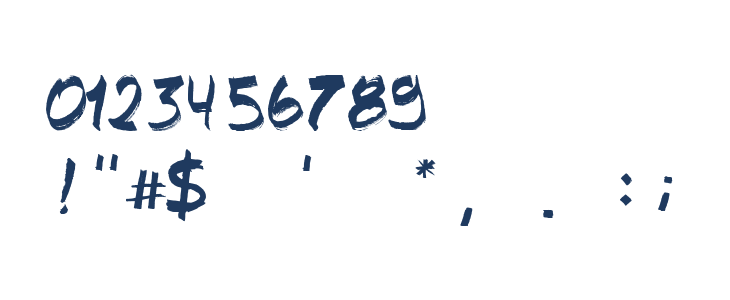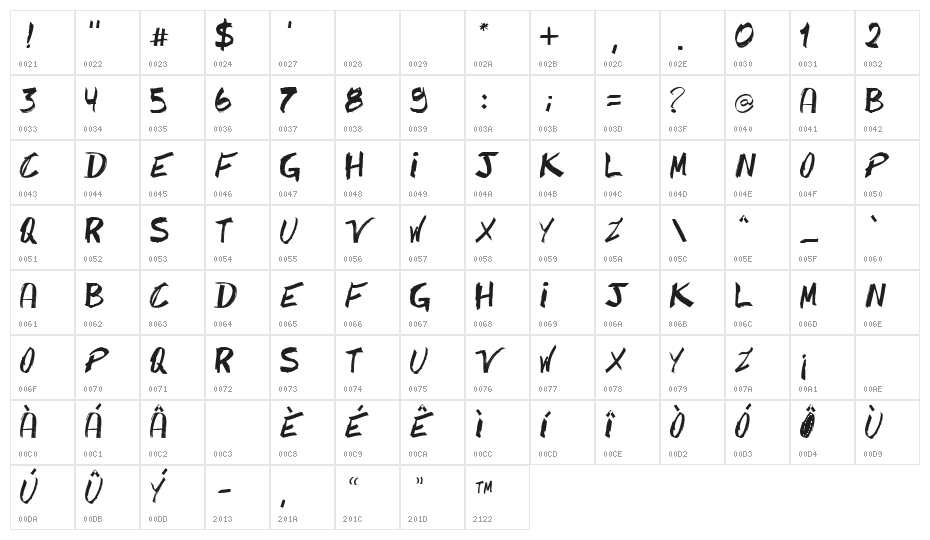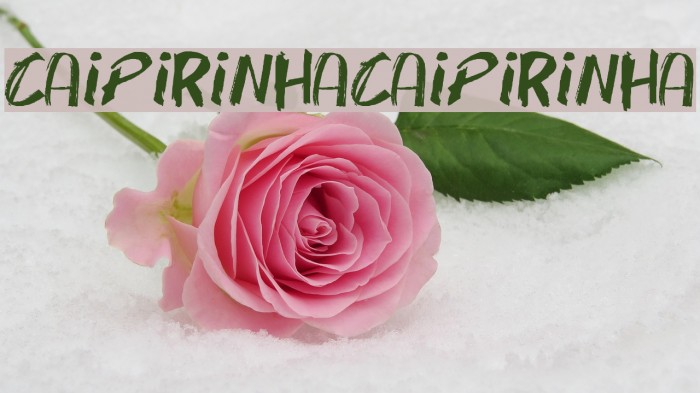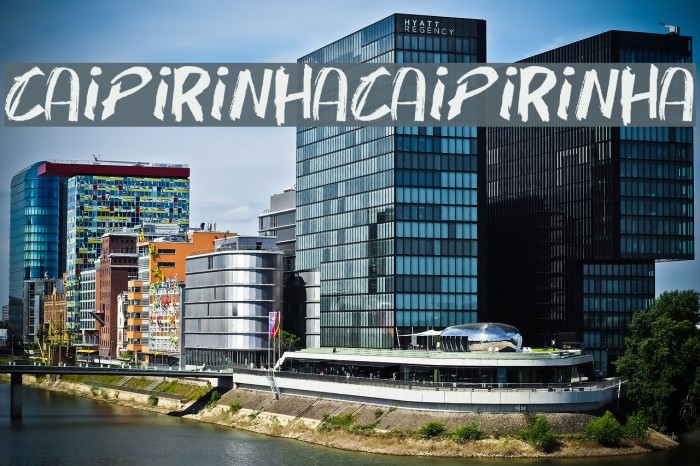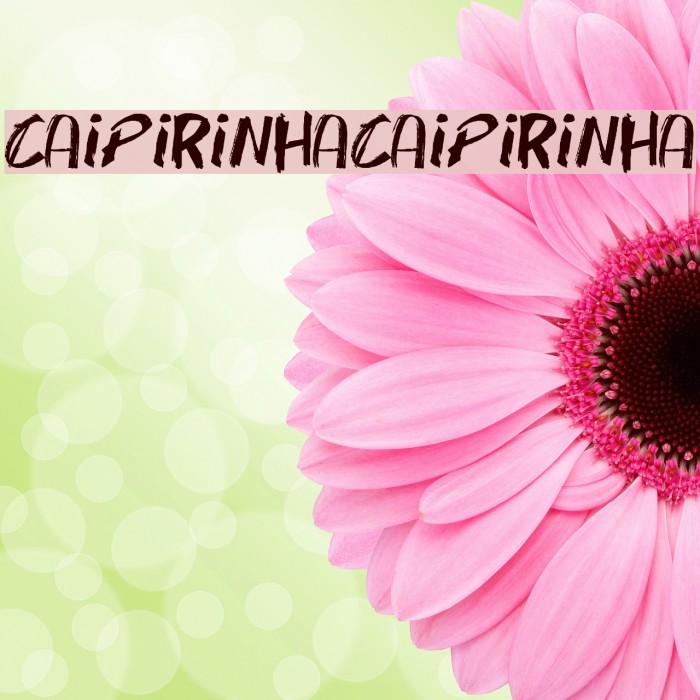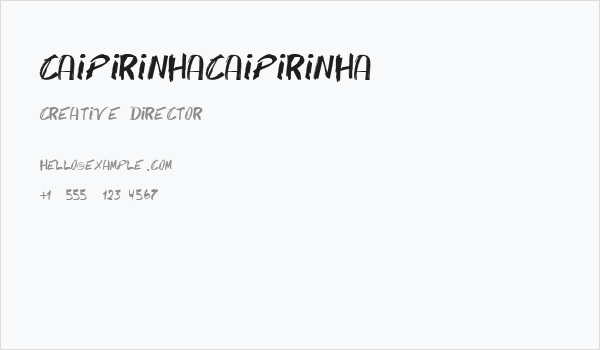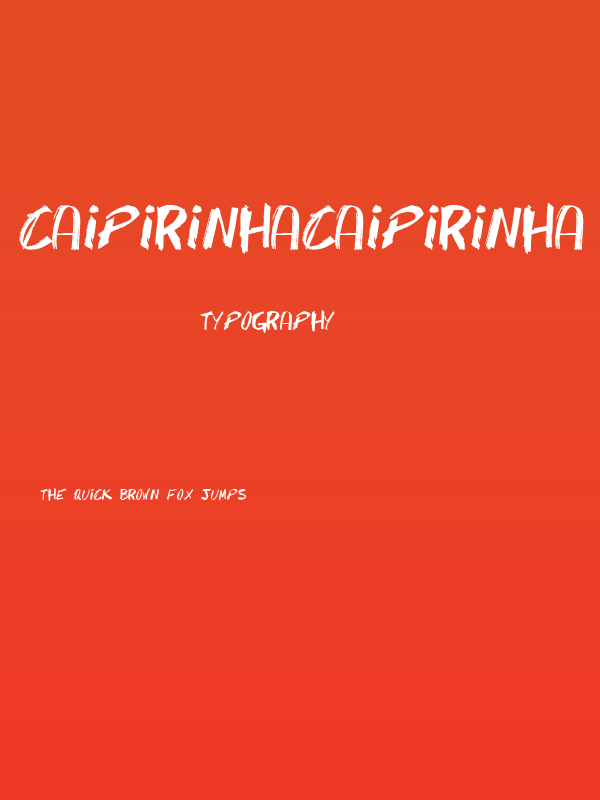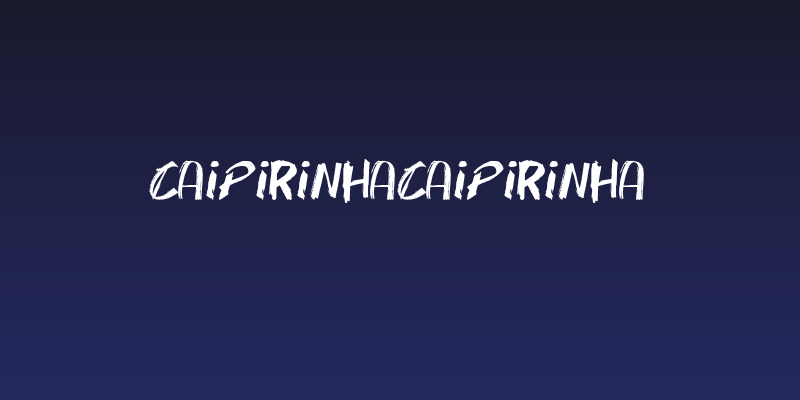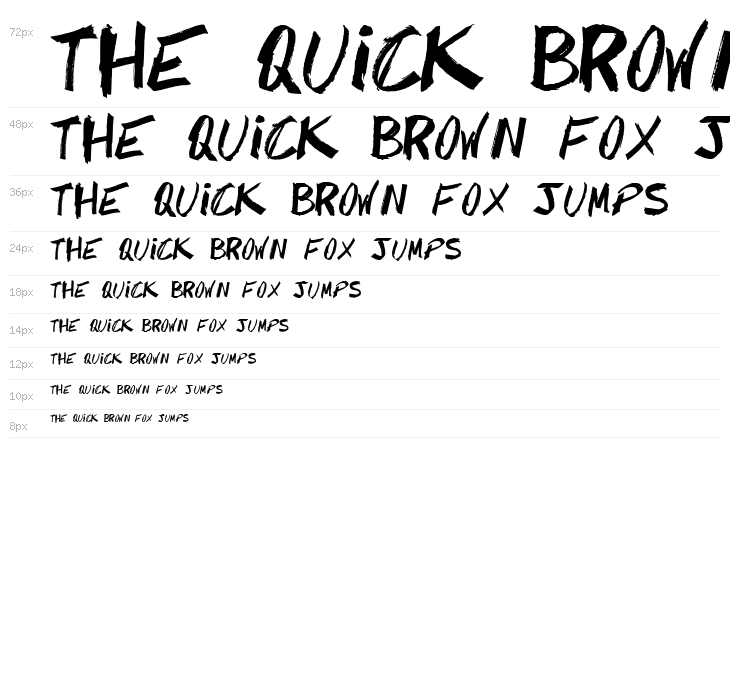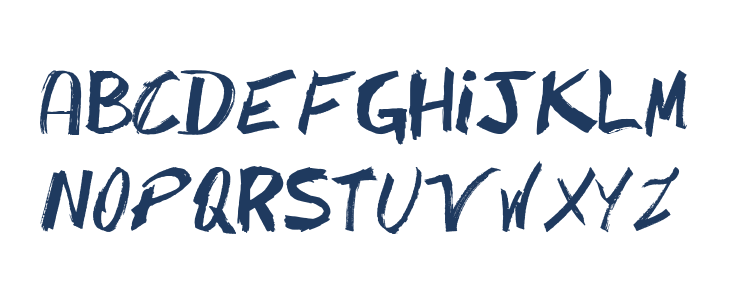
Caipirinha Font
Caipirinha Description
This font exudes a bold and dynamic energy, characterized by its brush-like strokes and expressive, hand-drawn appearance. The letters are slightly slanted, giving a sense of movement and fluidity. Each character is unique, with varying thicknesses that create a lively and artistic feel. The uppercase and lowercase letters maintain a consistent style, while the numerals and special characters complement the overall aesthetic. The font's irregular edges and organic shapes contribute to its informal and creative vibe, making it stand out in any design.
| Use Case | Headlines, Logos, Artistic designs |
| Proposed Projects | Ideal for creative projects such as posters, album covers, branding, and artistic invitations. |